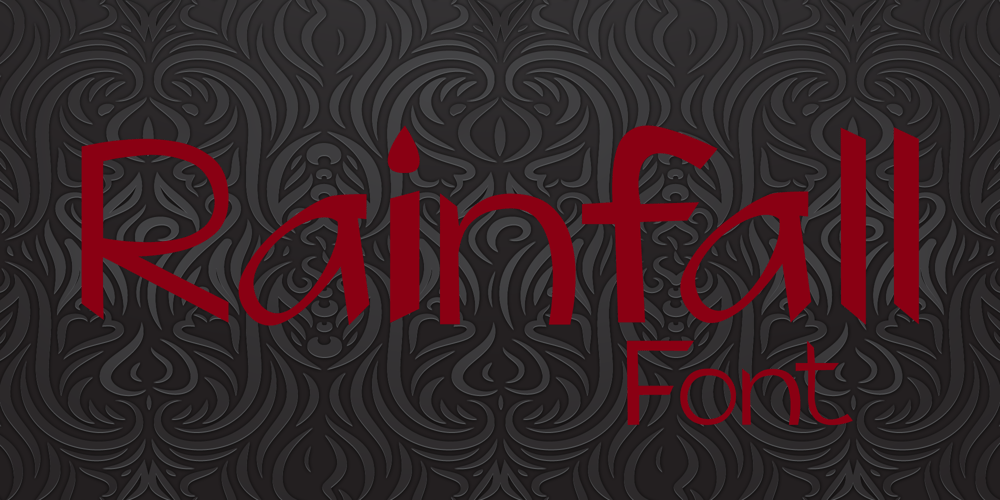
Rainfall Font Family was designed by Justin Sola and published by Arkalandara. Rainfall contains 1 styles and family package options. Nightmare font is a simple attempt to convey the essence of a handwritten font with strong lines. In a real handwritten font, you would find more variation in line thickness, curves, and other design elements that contribute to the overall style.Creating a visual representation of a handwritten font using lines can be a bit challenging in plain text, but I’ll provide a simple ASCII representation that may give you an idea of a strong handwritten style. Keep in mind that this is a very basic representation, and actual fonts would have much more detail and nuances.